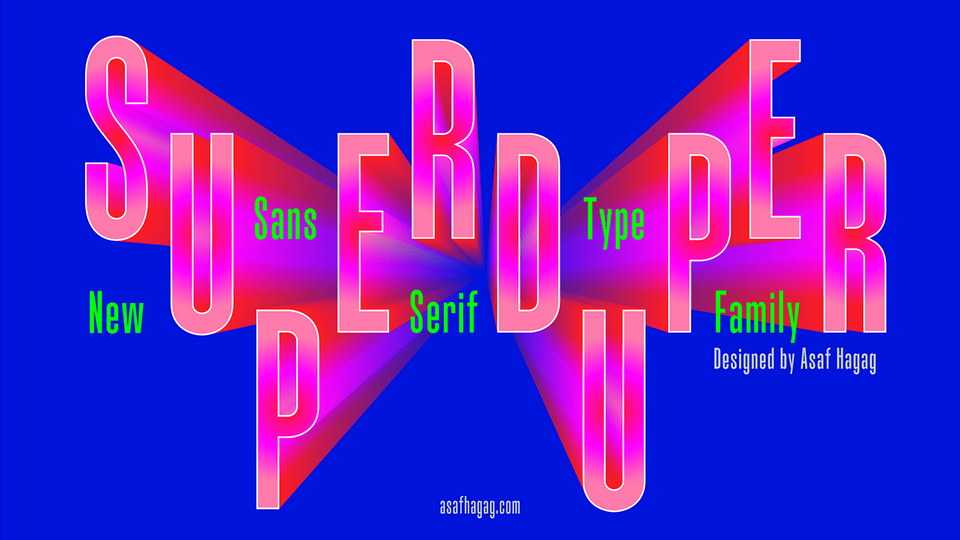
Download SuperDuper font, a grotesque sans serif typeface designed for super-sized headlines and short paragraphs. SuperDuper looks great in posters, social media, magazine titles and when you need maximum use of space.
Designer: Asaf Hagag